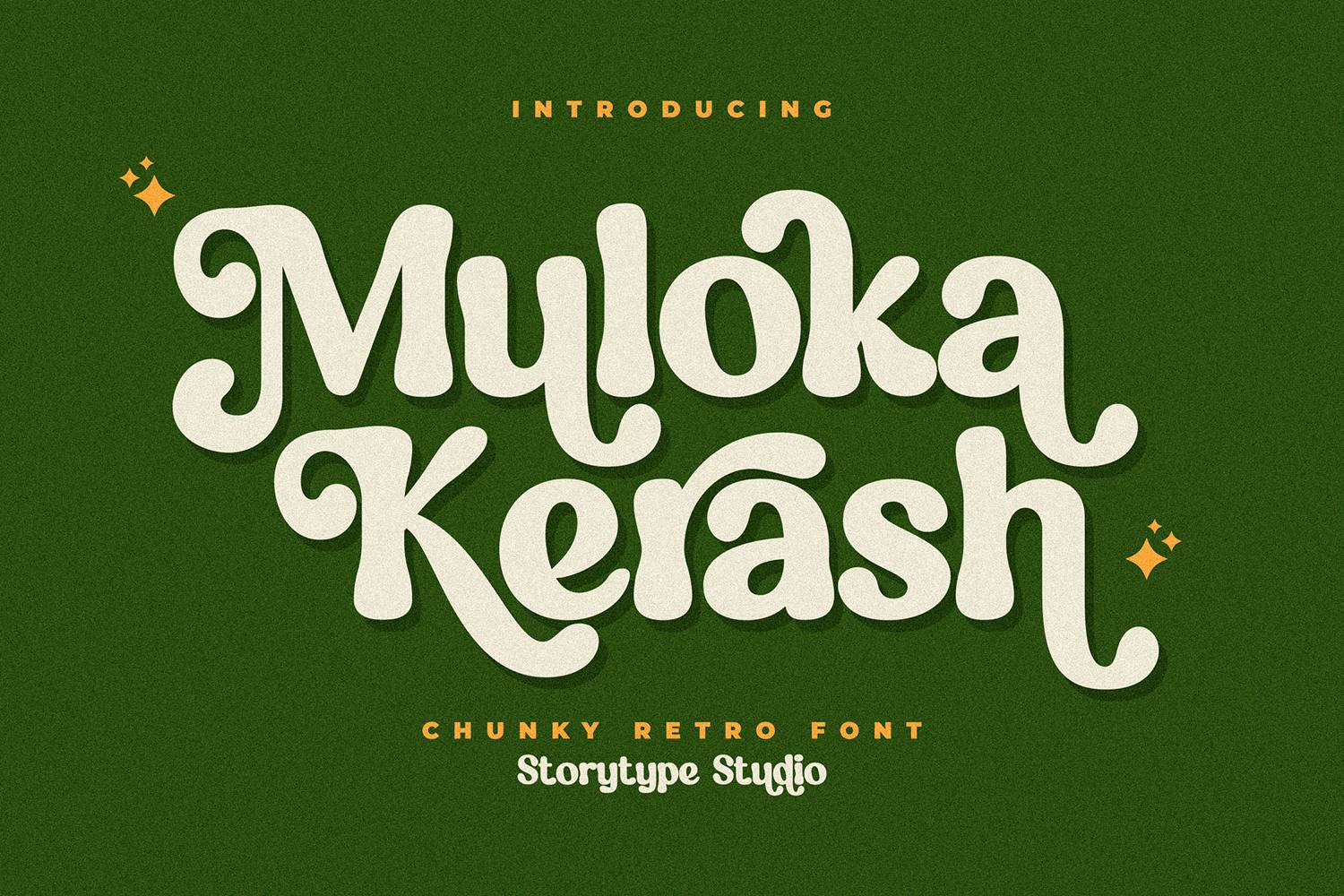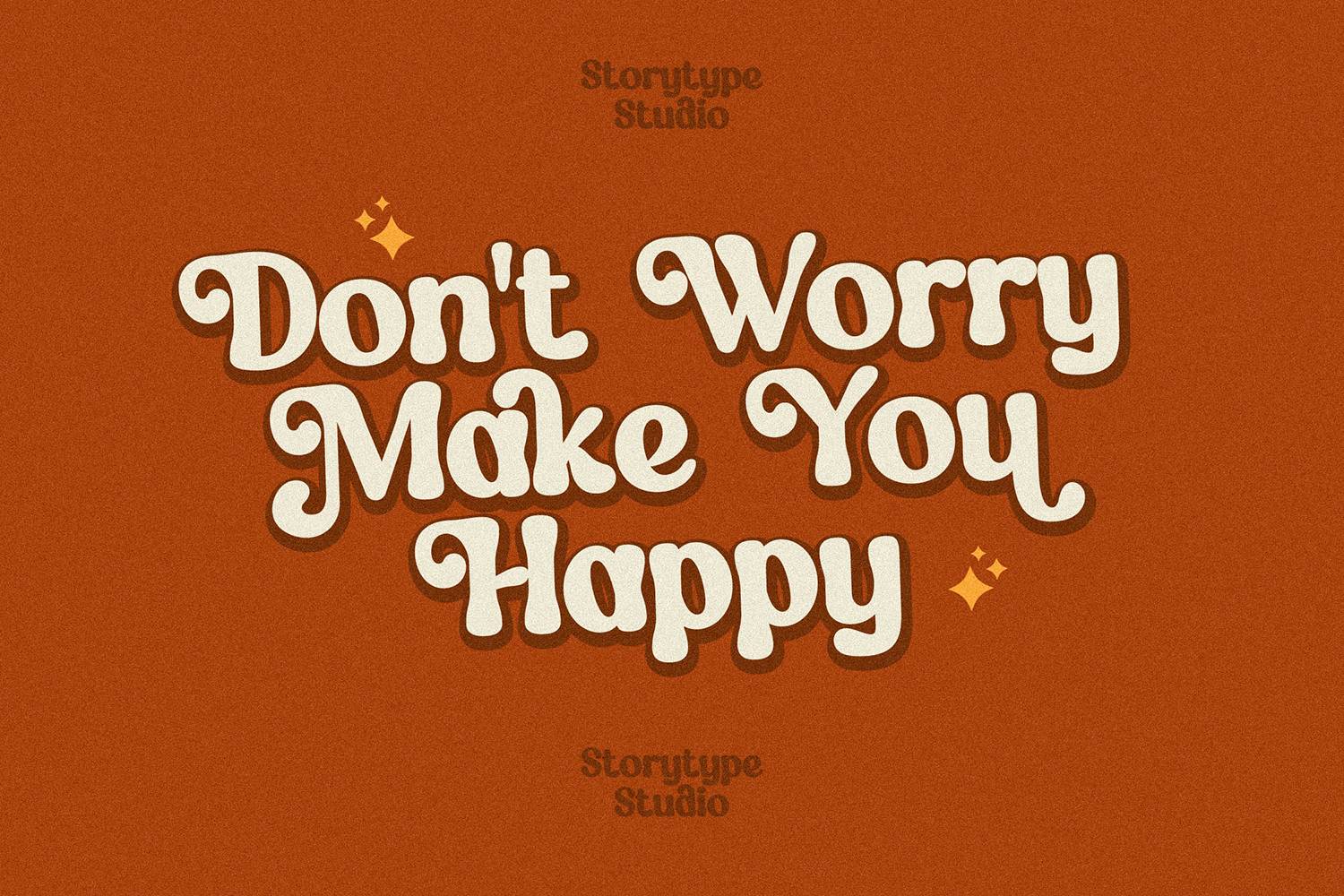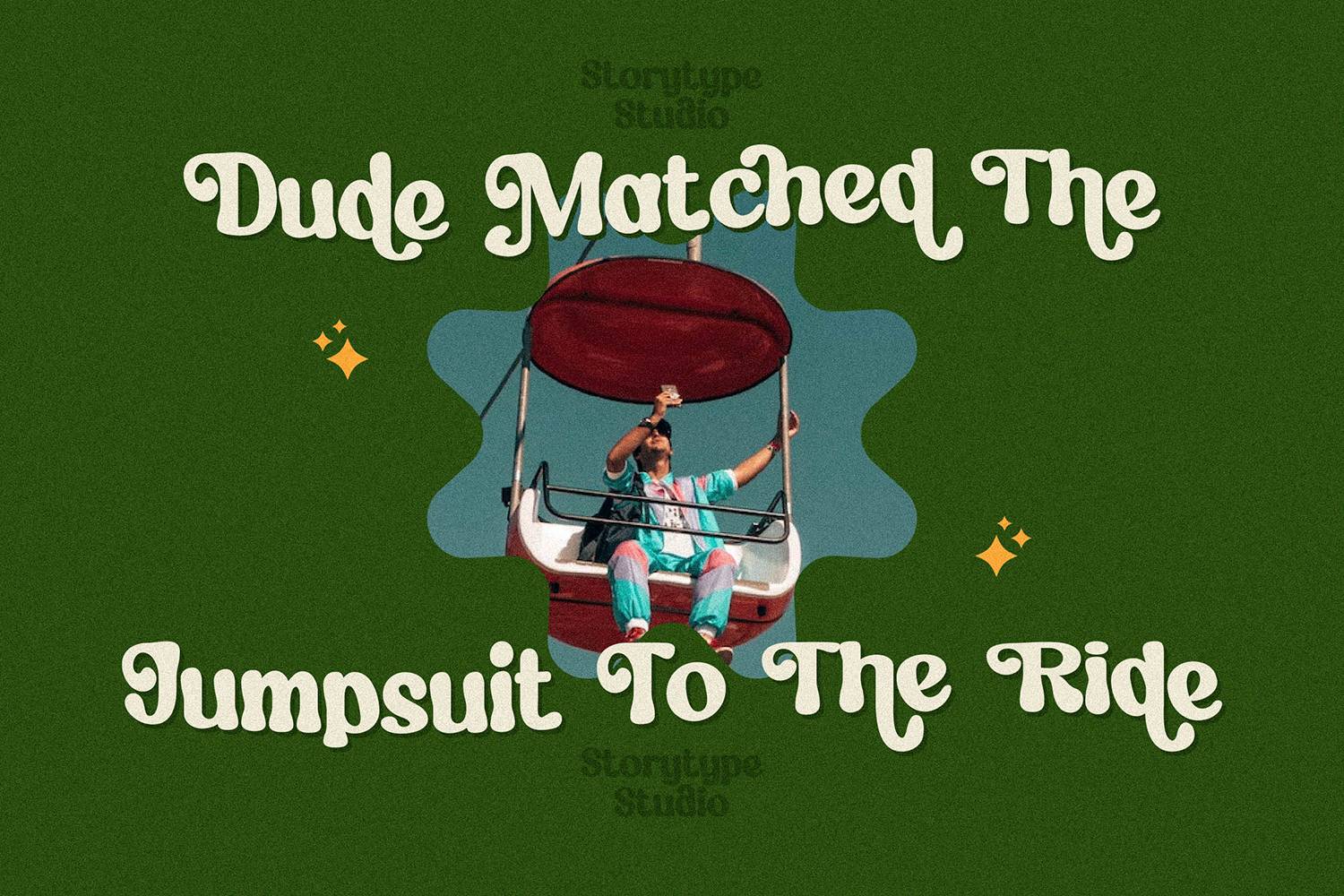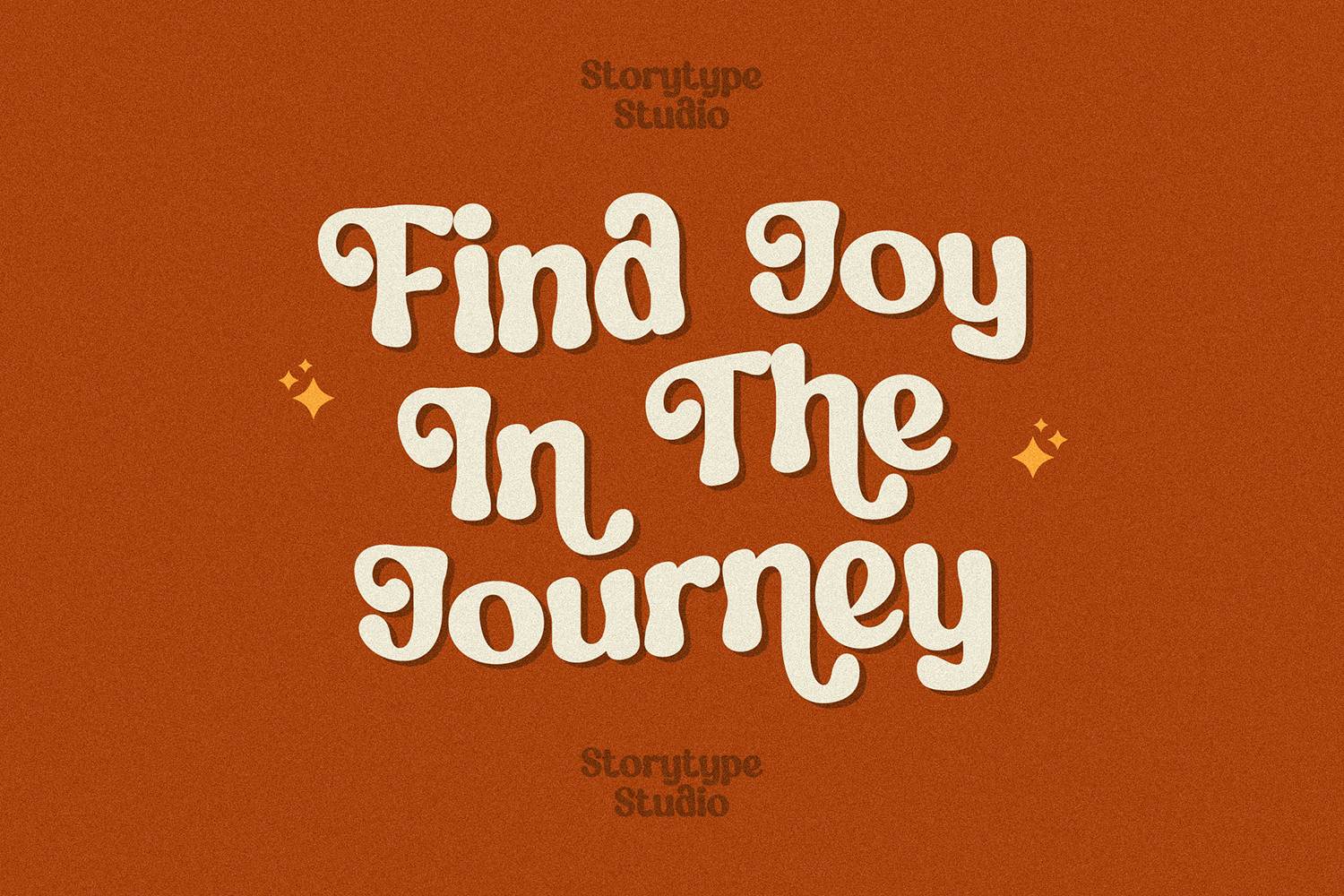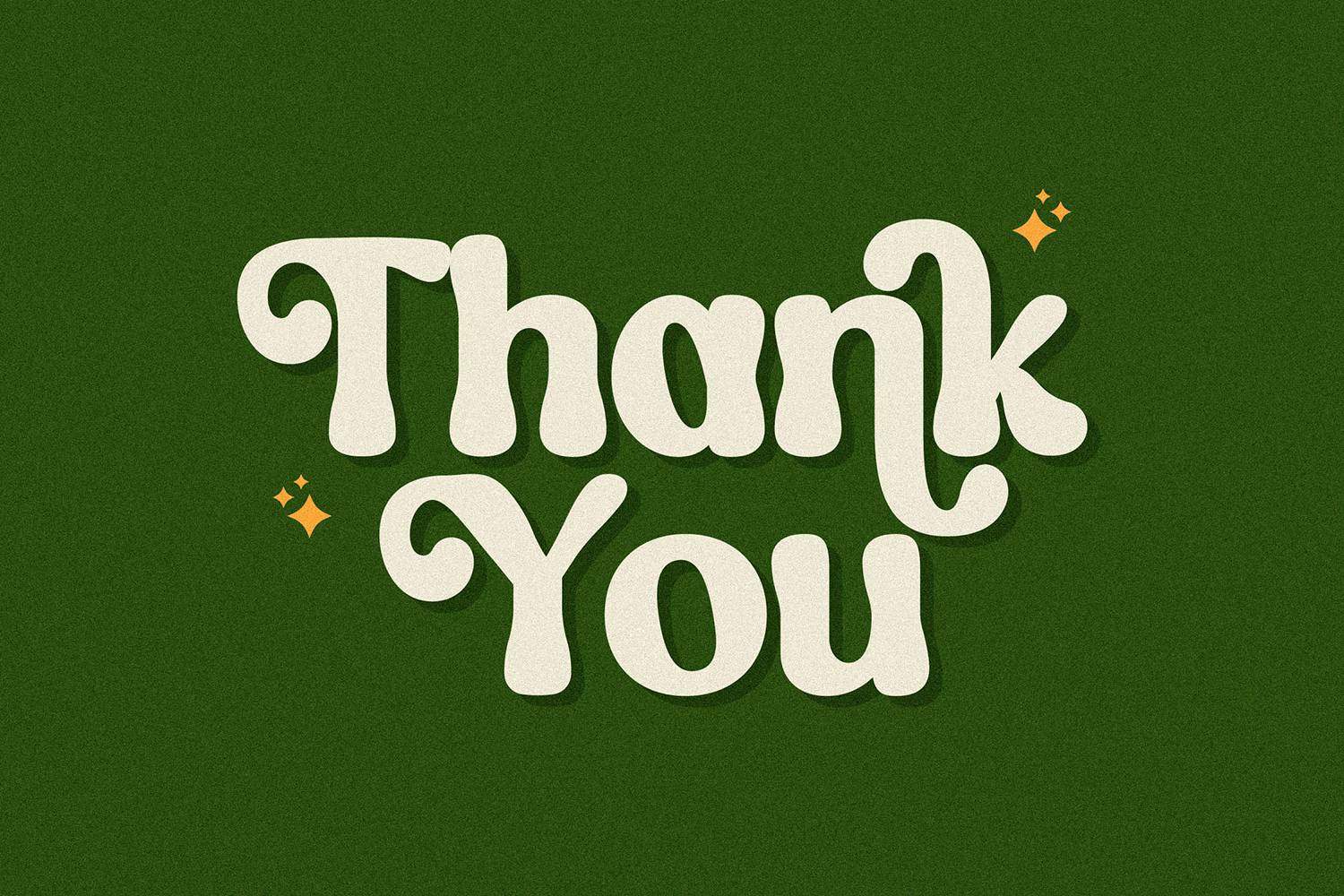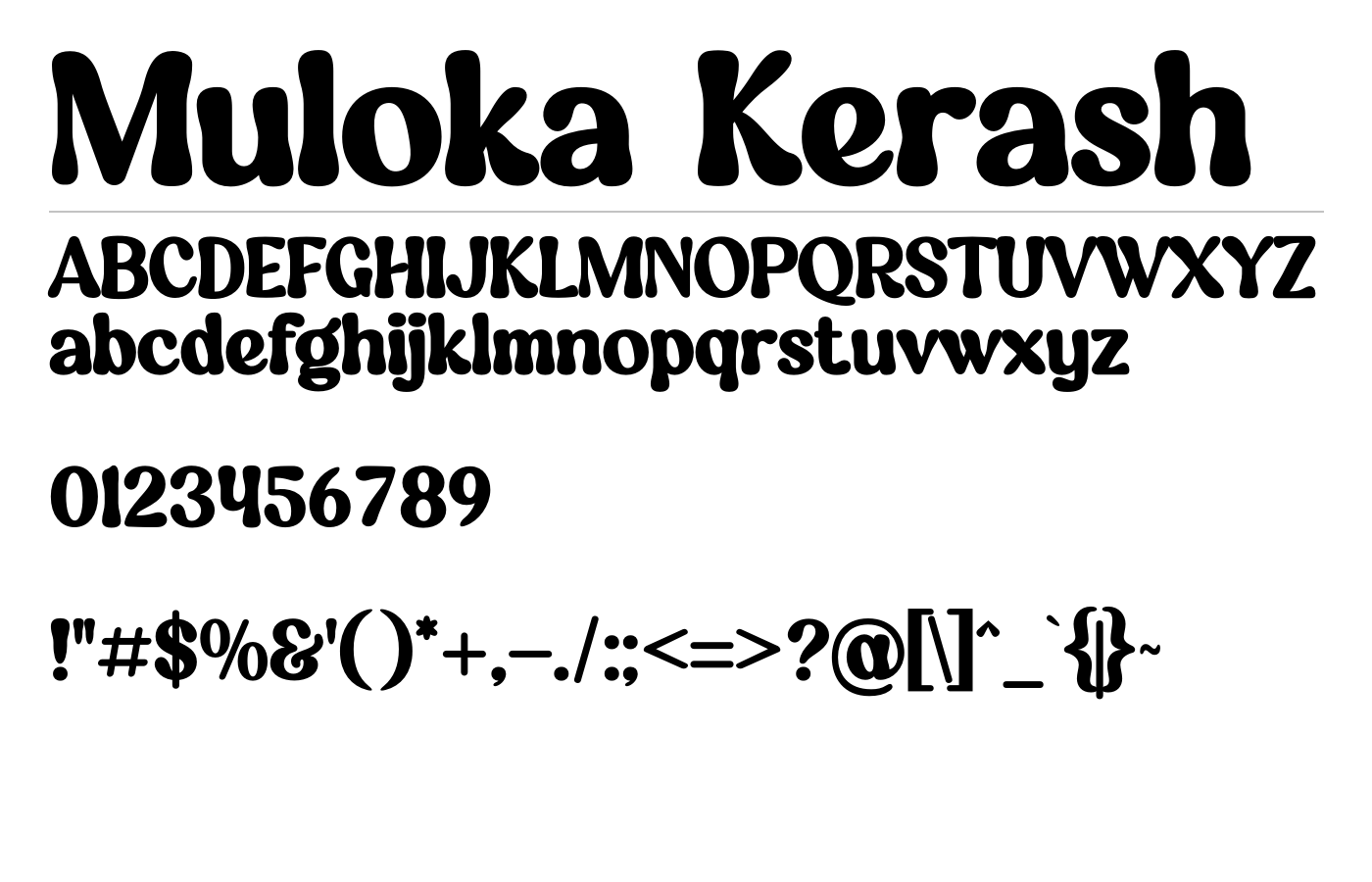
Muloka Kerash is a bold, playful serif font with rounded, soft edges that give it a friendly and approachable feel. Its medium contrast and unique letterforms make it ideal for fun, creative projects such as logos, posters, and packaging where a lively and engaging vibe is desired. This font works well for branding that wants to communicate warmth, creativity, and a touch of whimsy while maintaining clear readability.
Muloka Kerash Font
About Muloka Kerash Font
| Font family | Muloka Kerash Font |